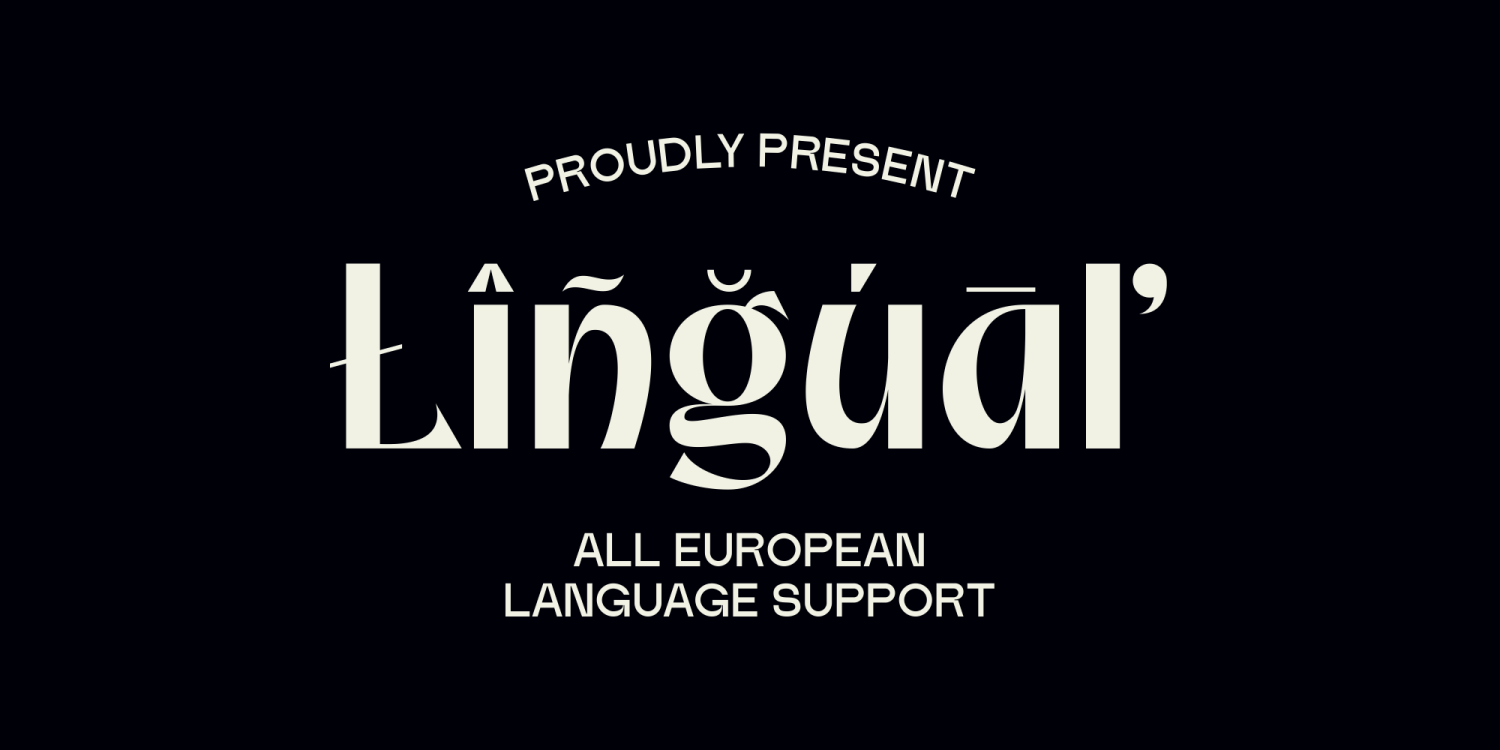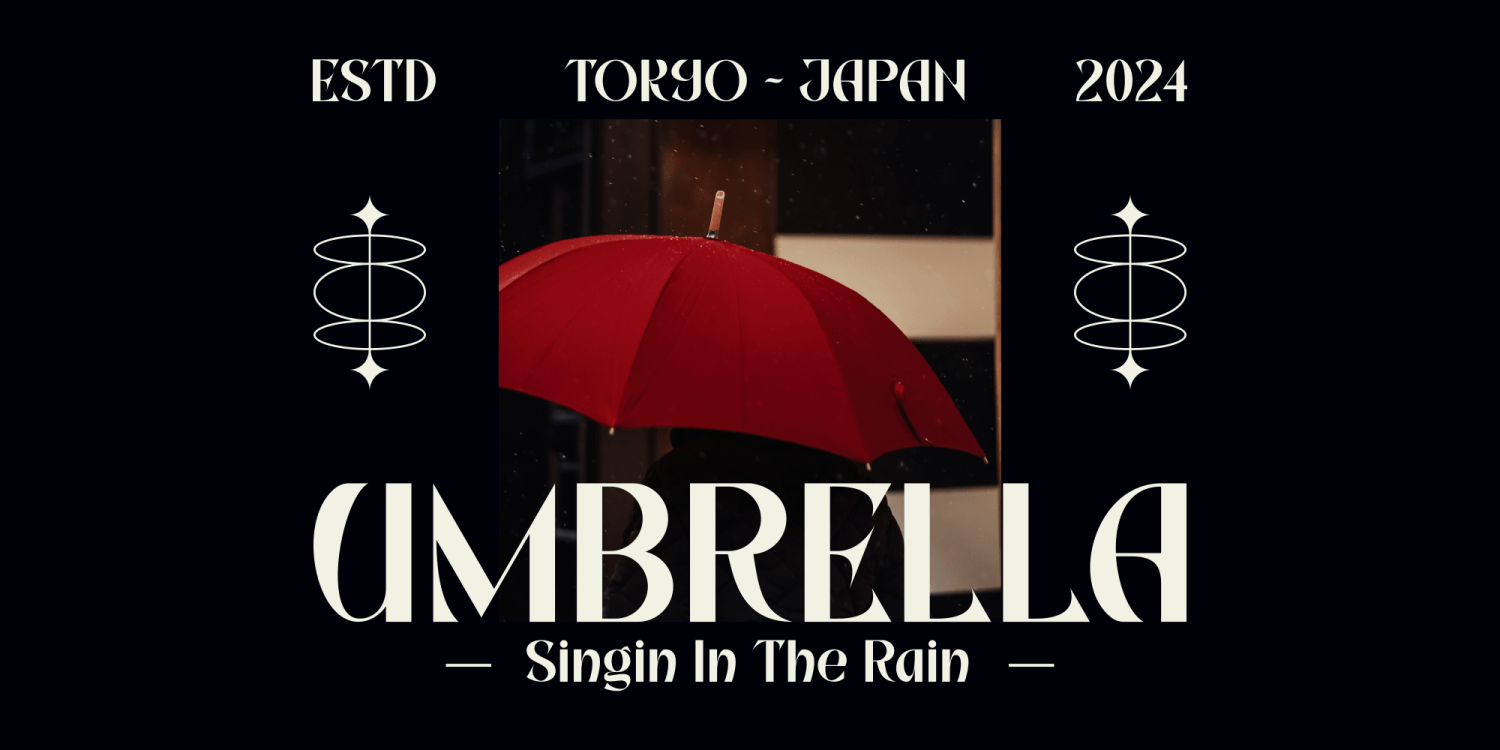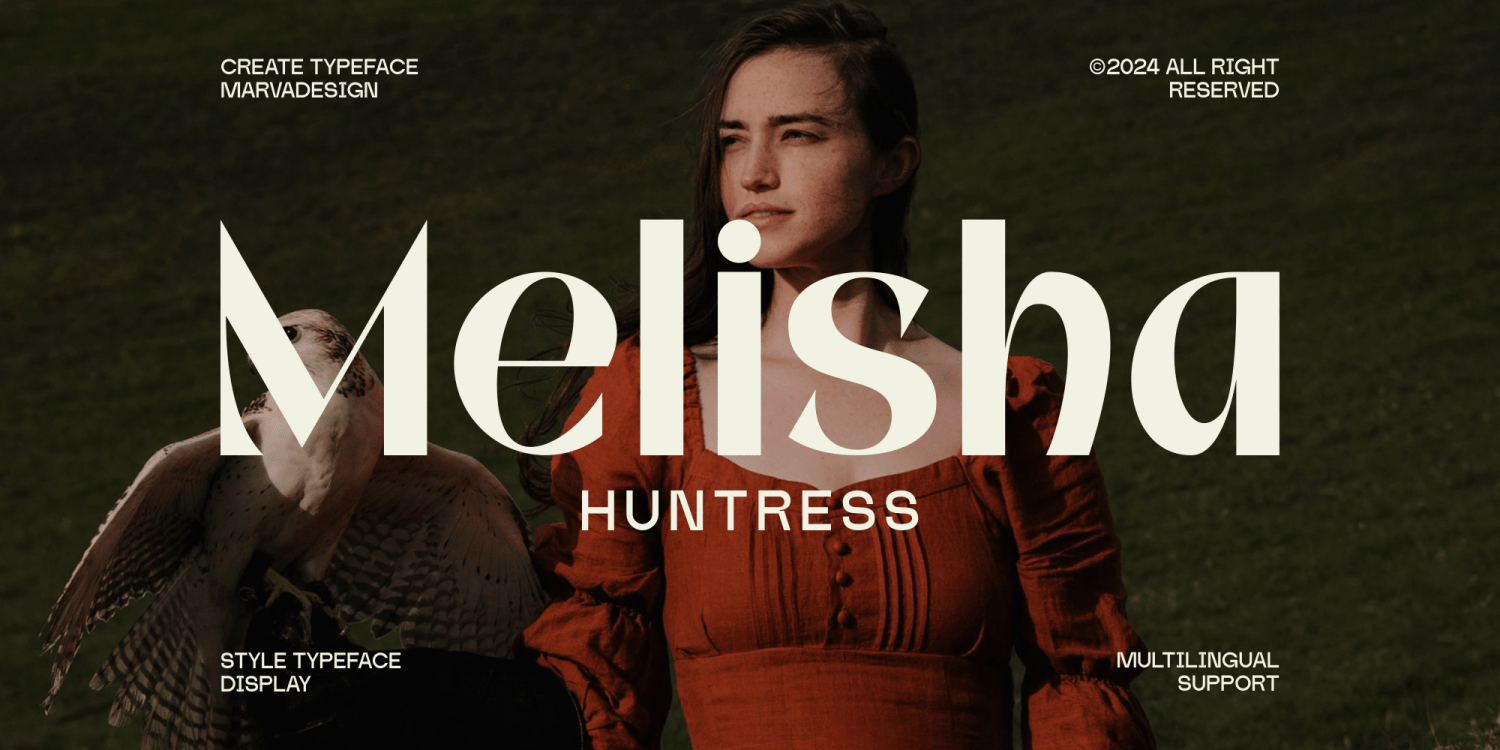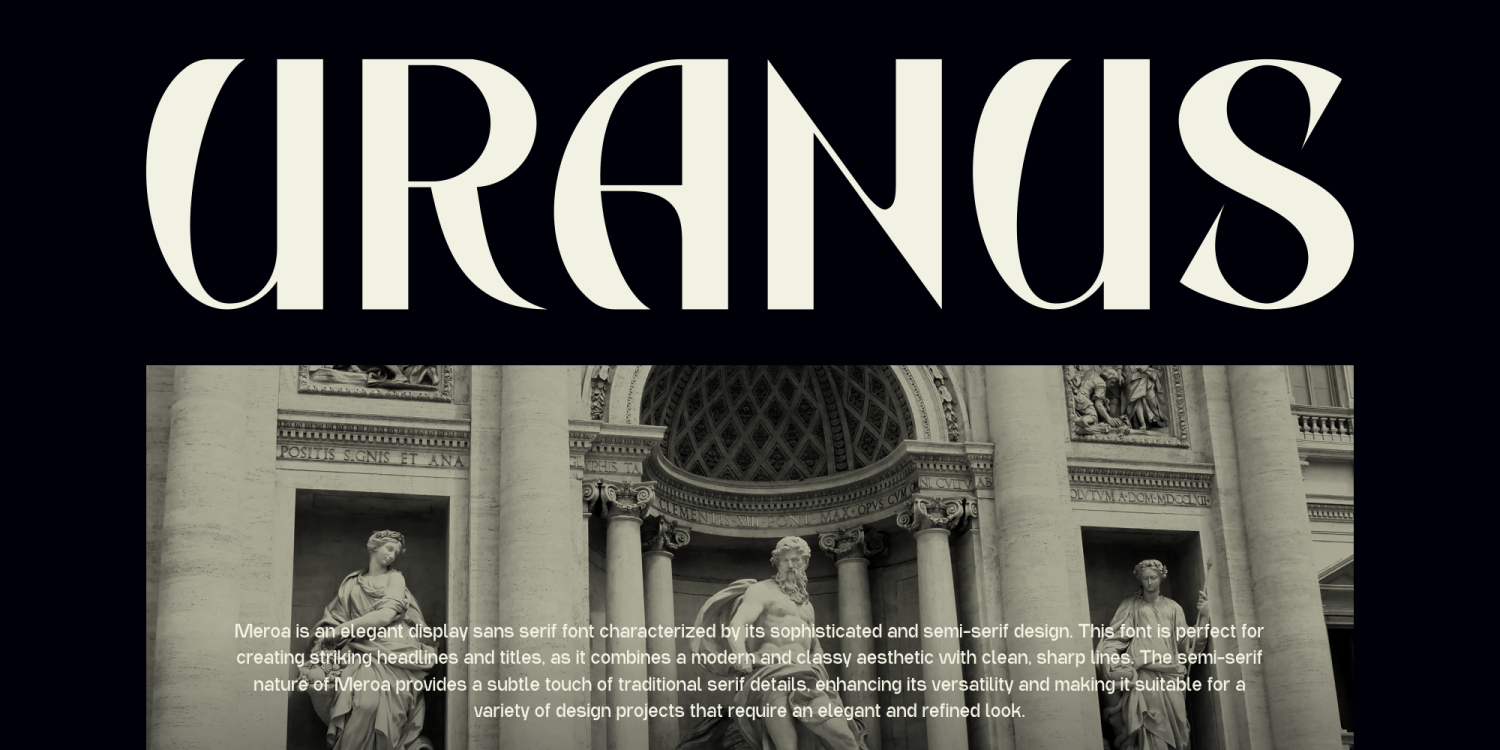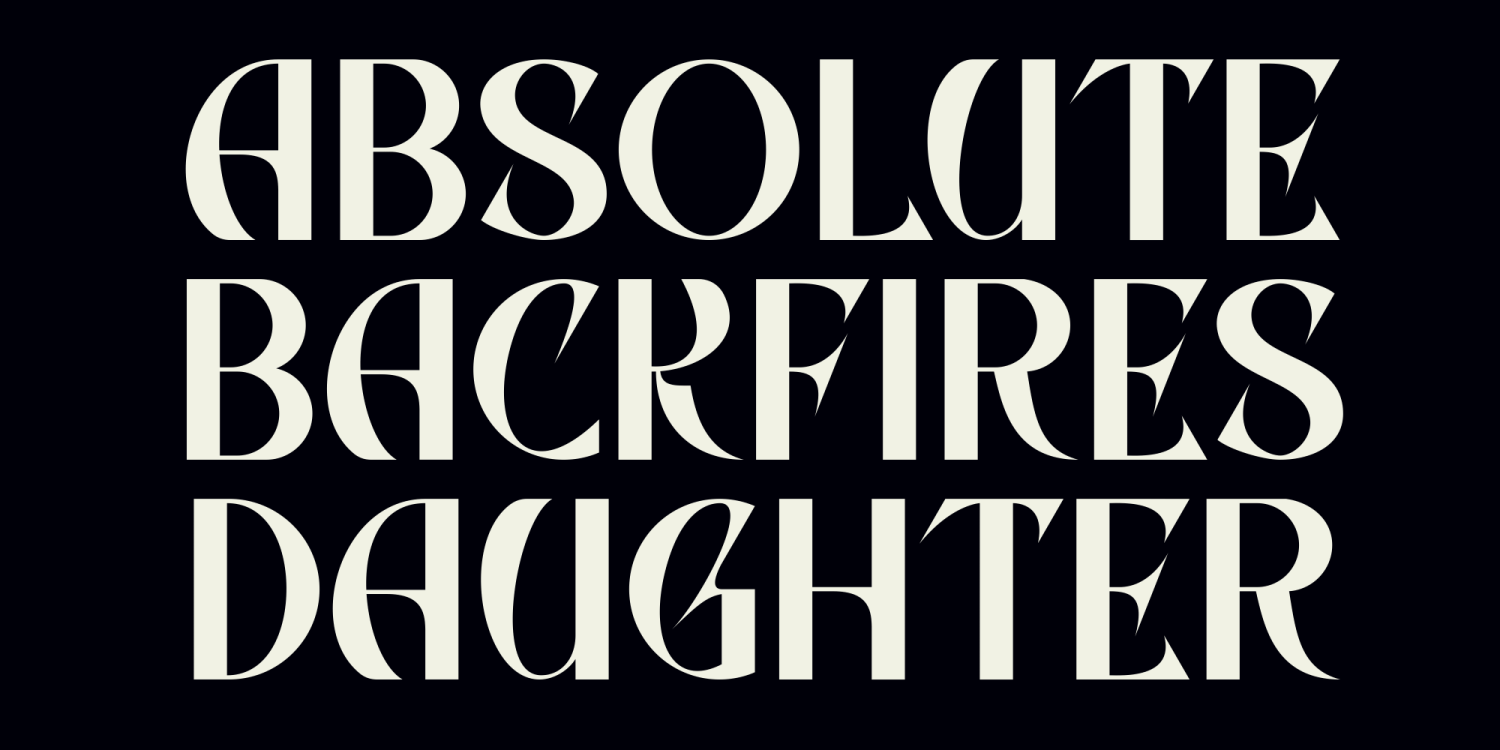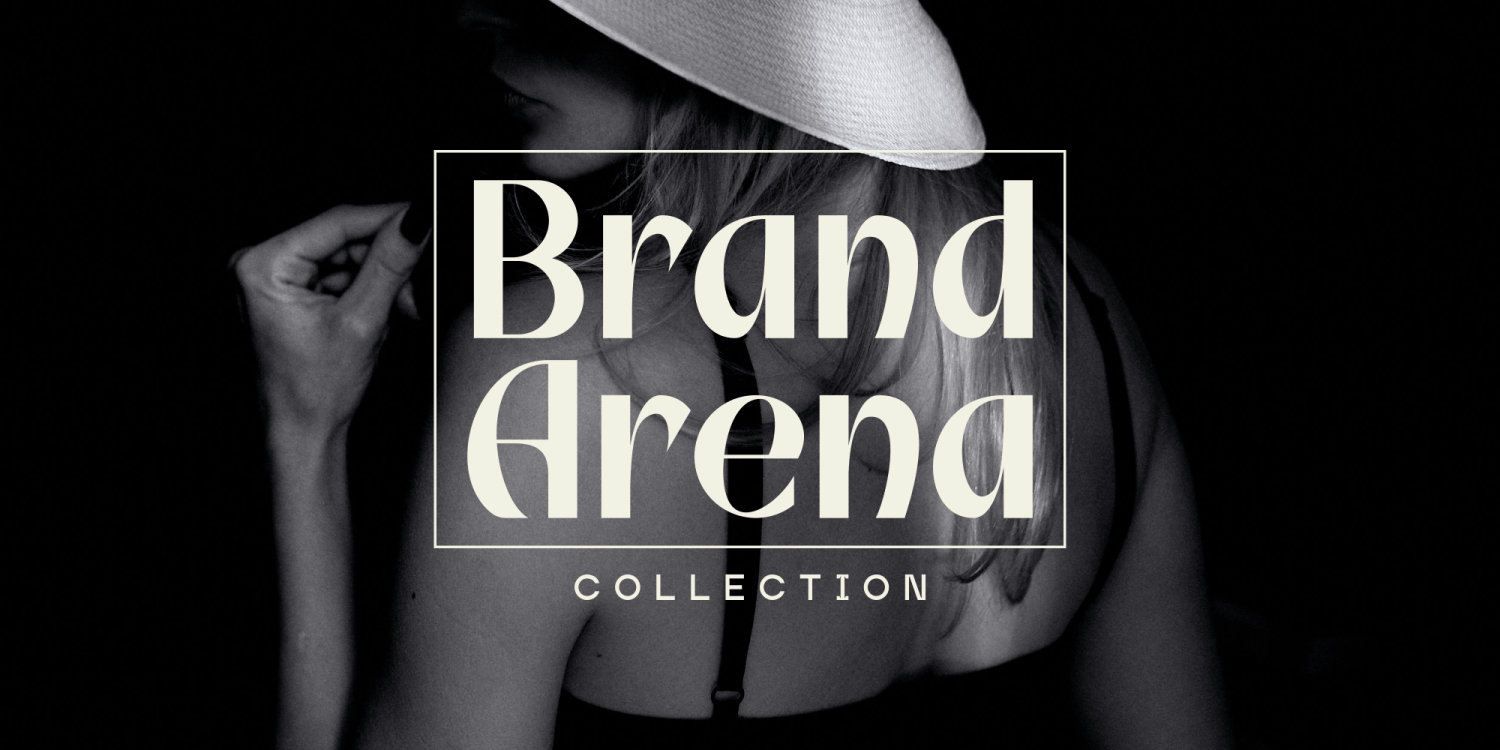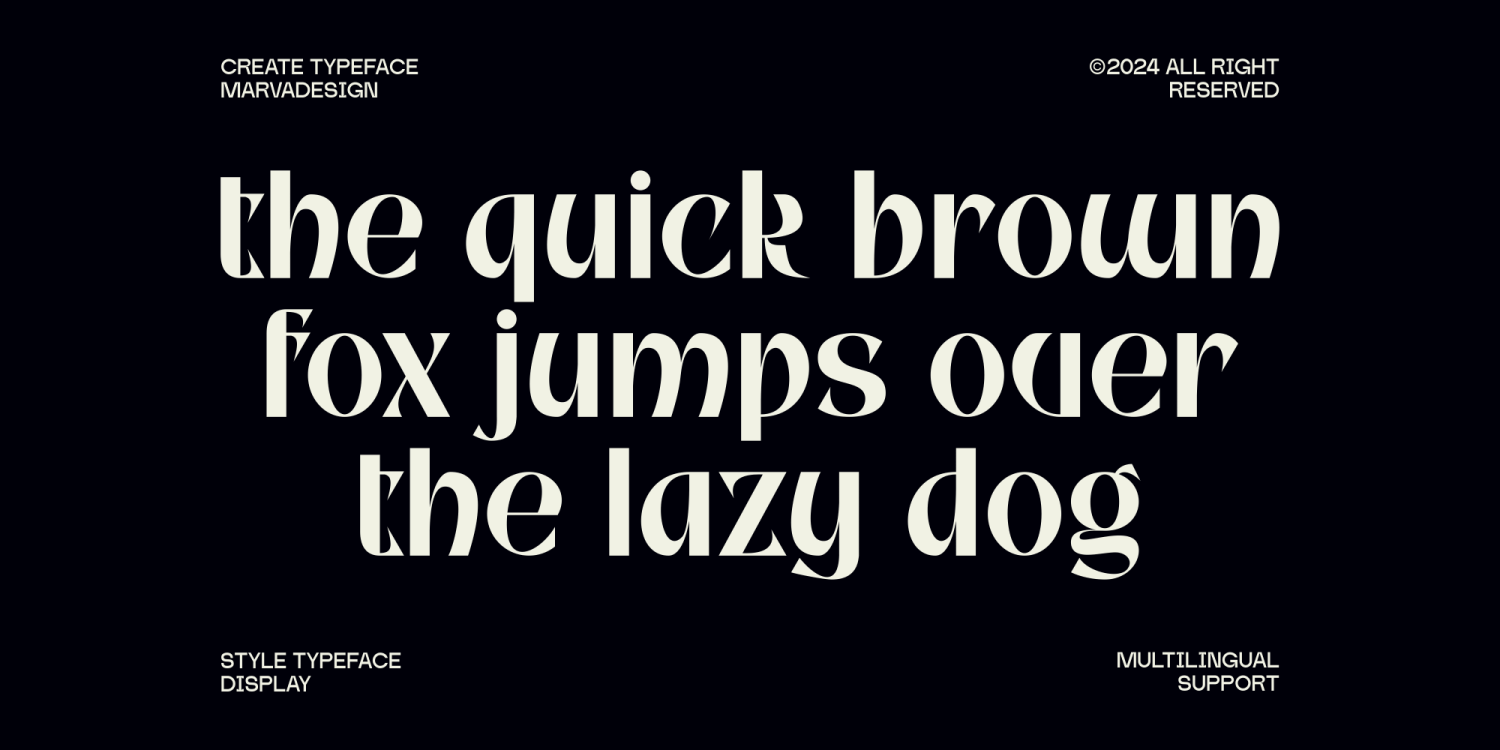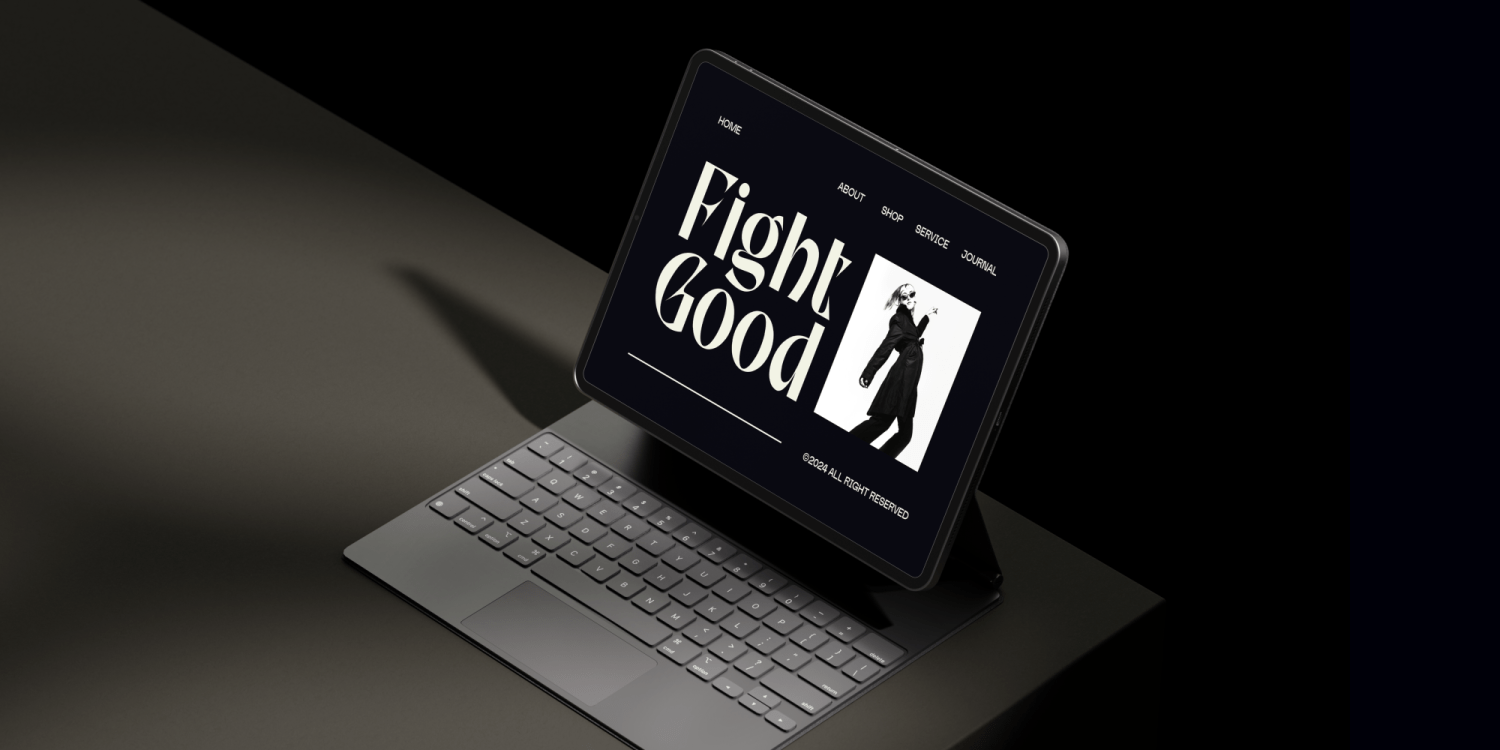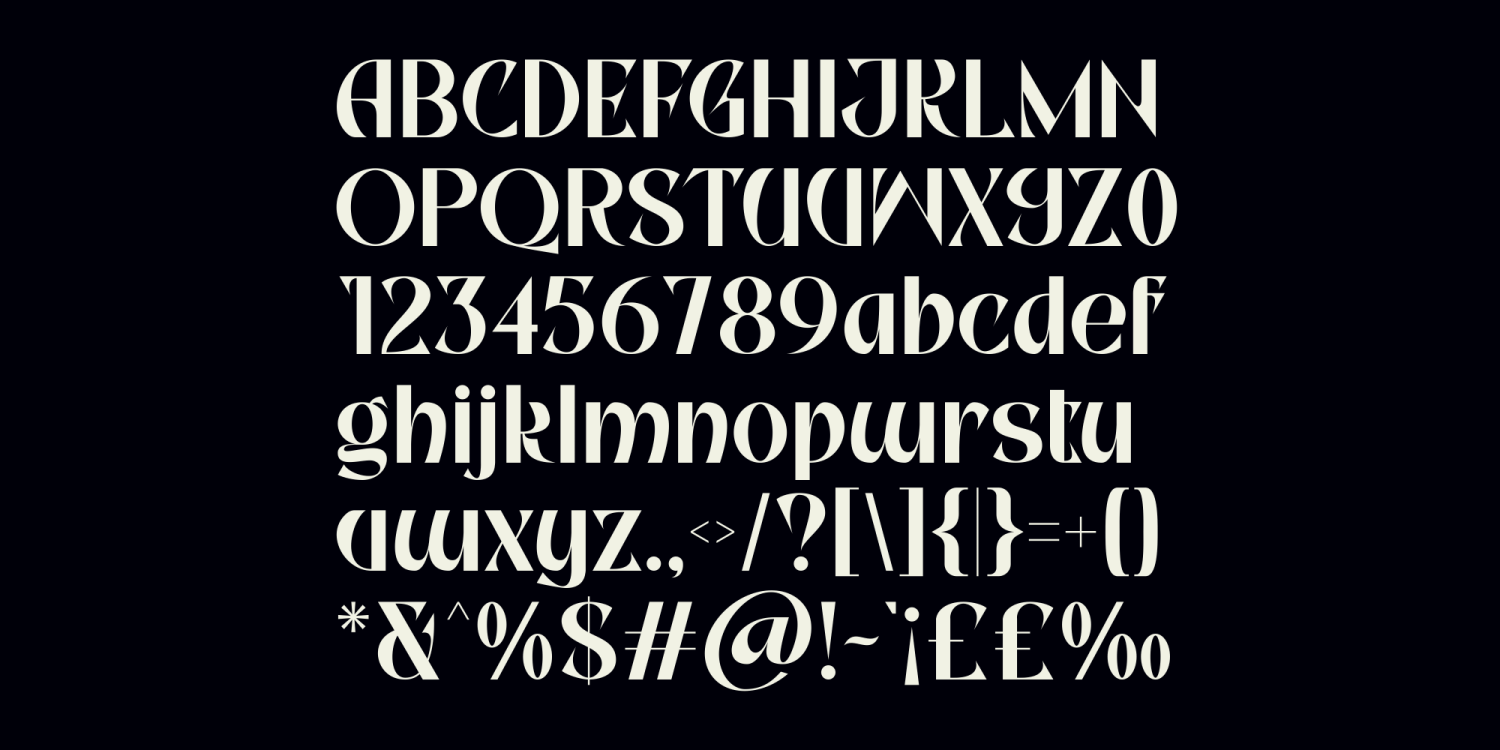
Meroa
Font Family by Marvadesign
Introducing Meroa is an elegant display sans serif font characterized by its sophisticated and semi-serif design. This font is perfect for creating striking headlines and titles, as it combines a modern and classy aesthetic with clean, sharp lines. The semi-serif nature of Meroa provides a subtle touch of traditional serif details, enhancing its versatility and making it suitable for a variety of design projects that require an elegant and refined look.
Meroa by Marvadesign